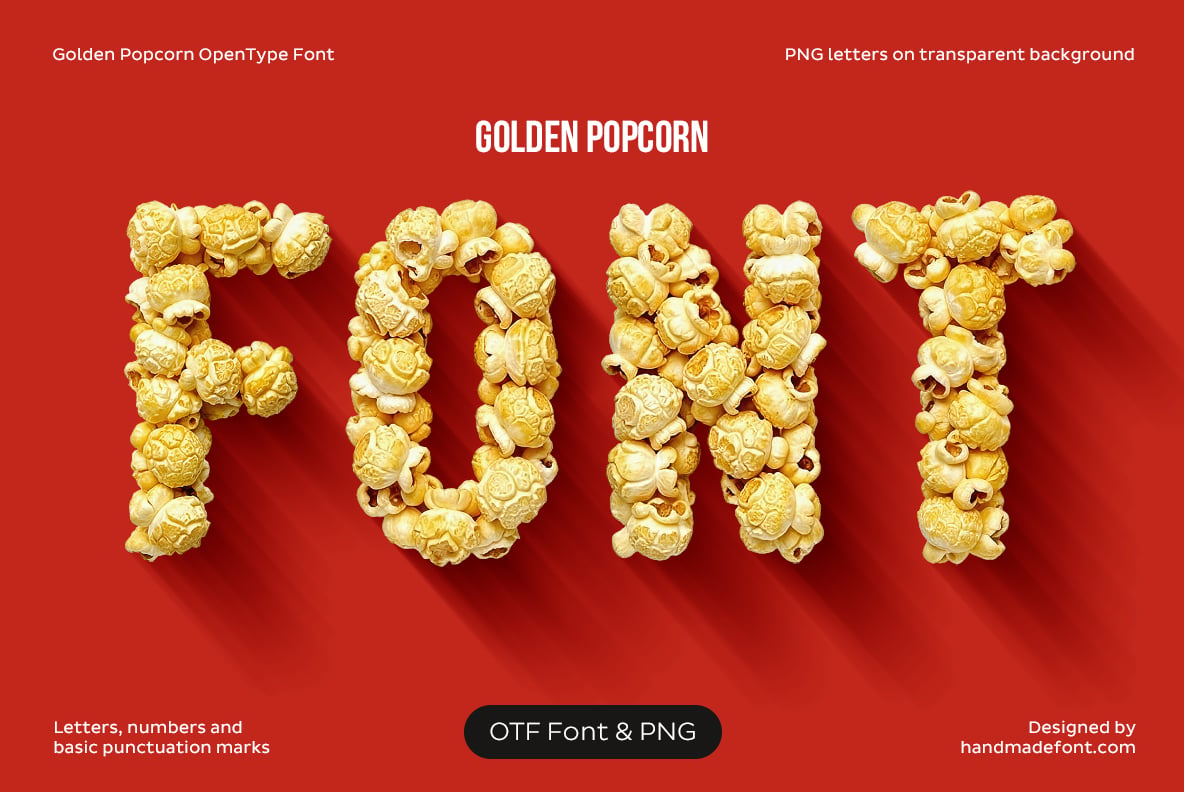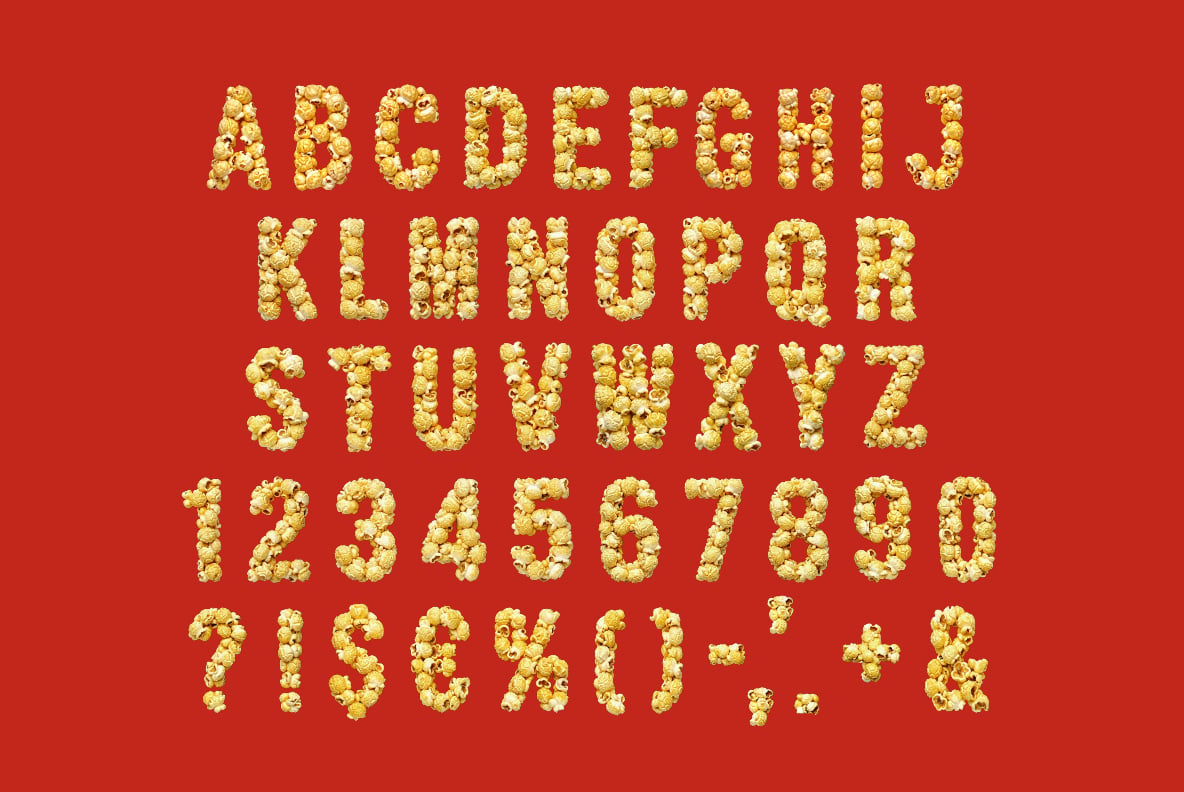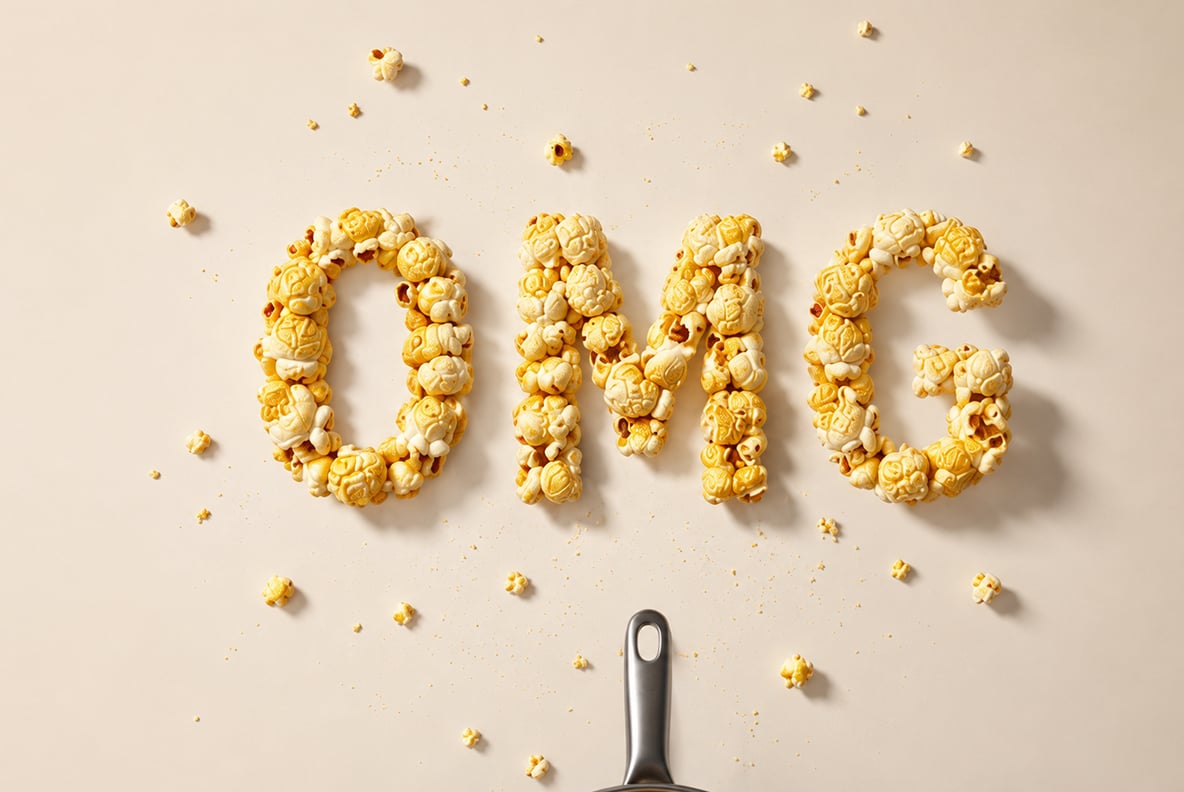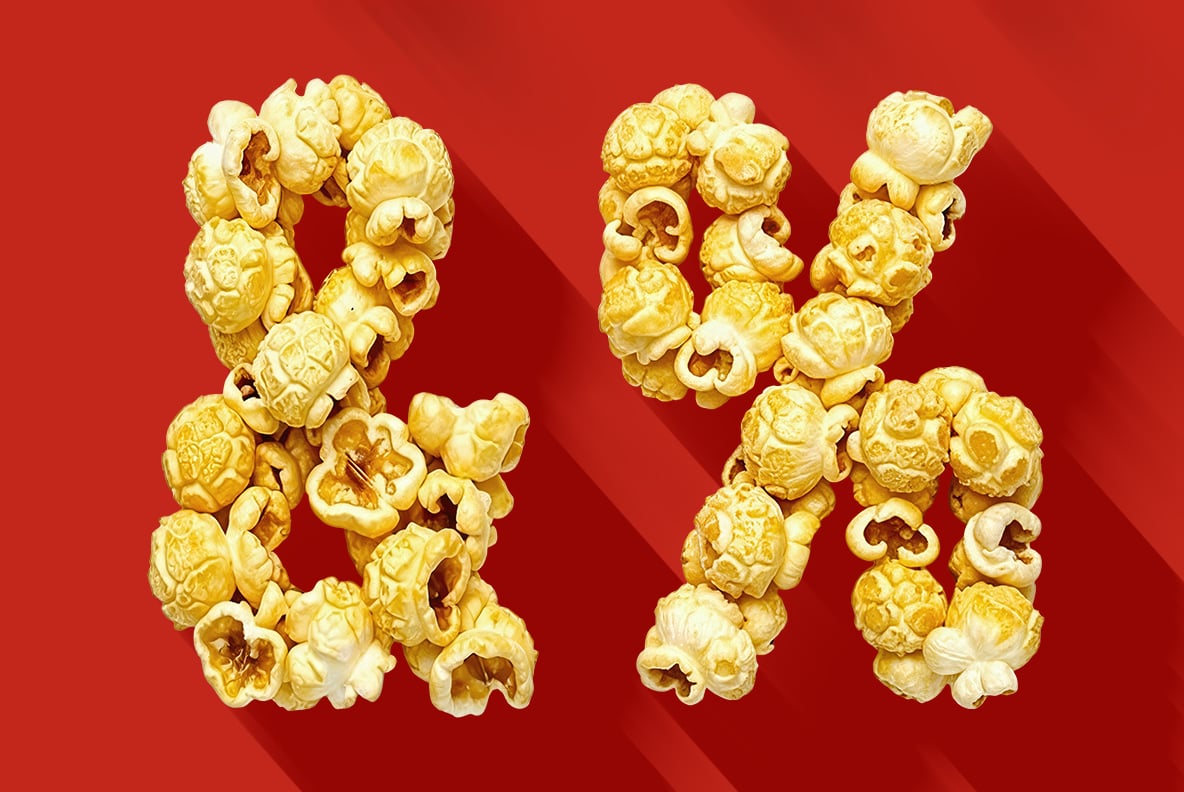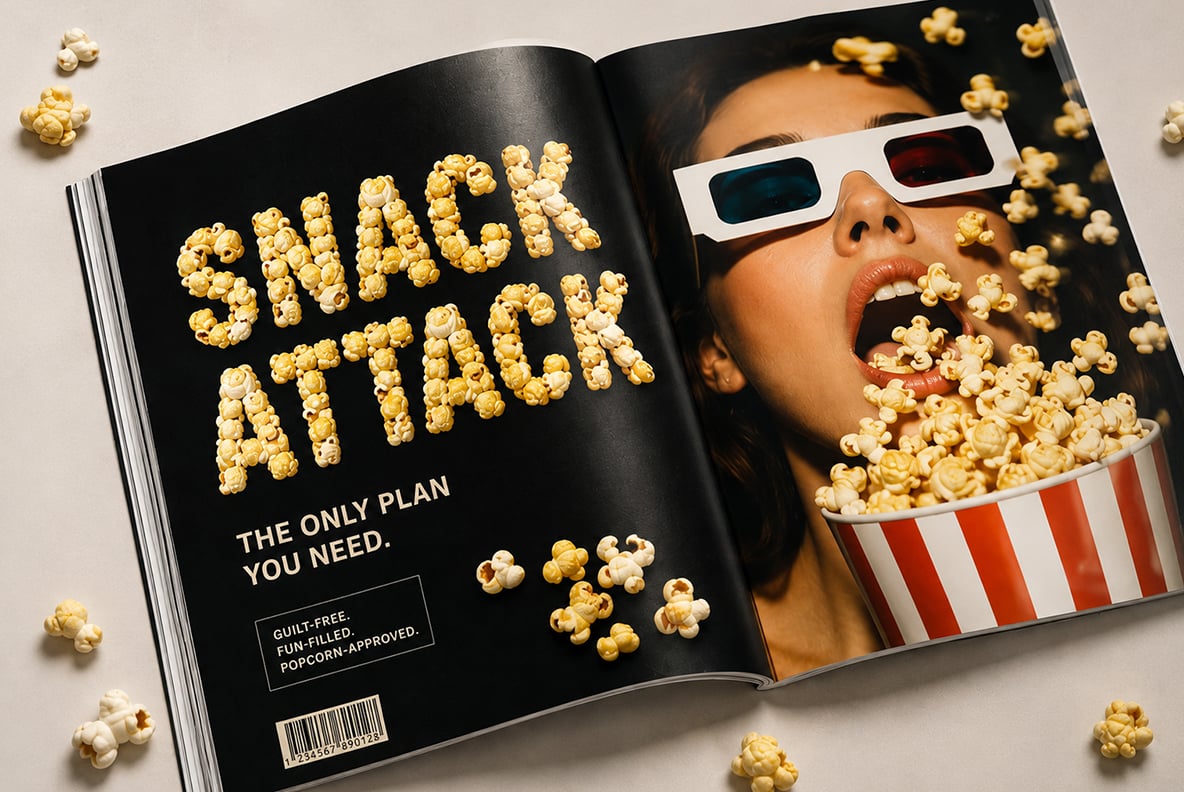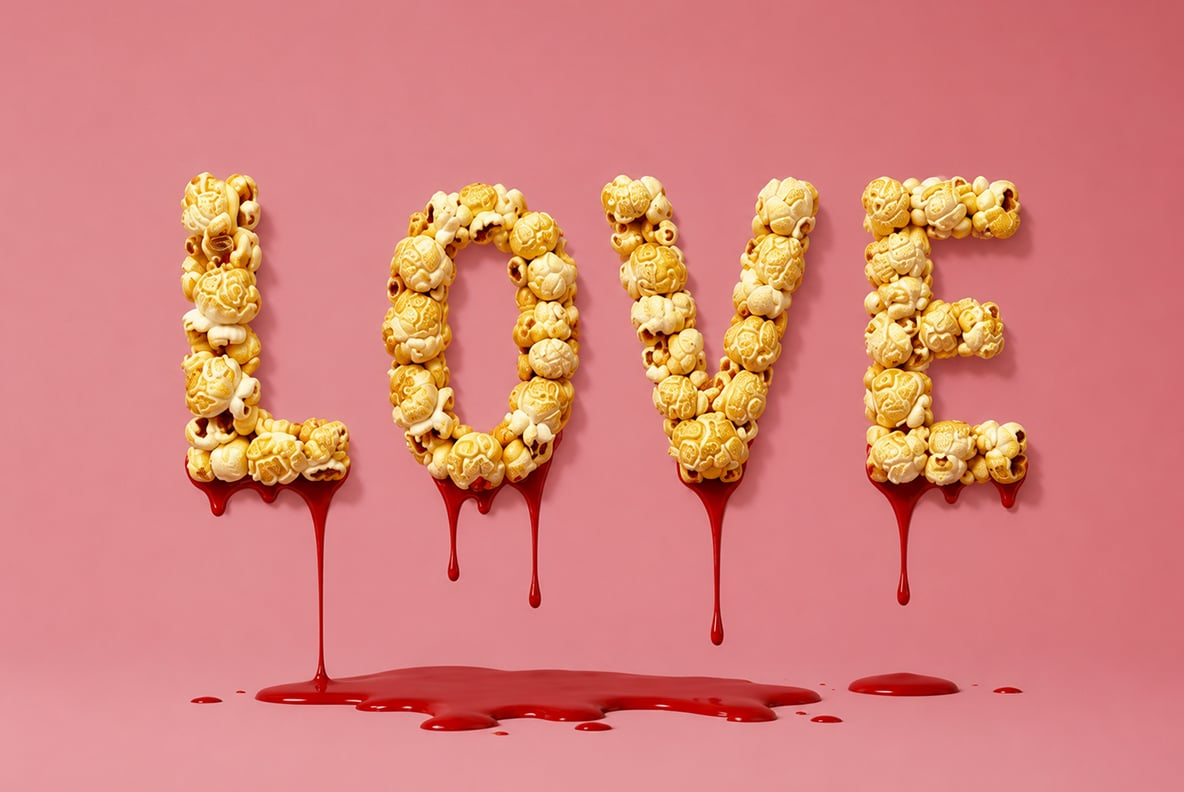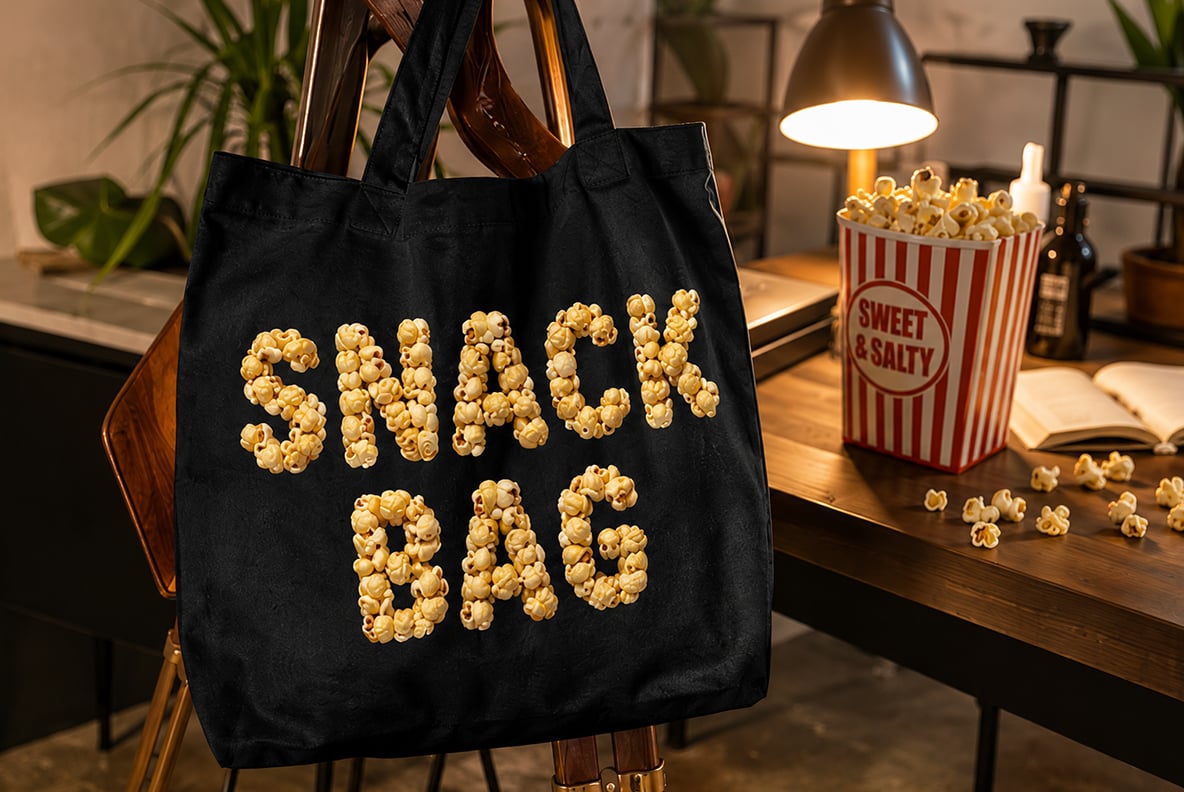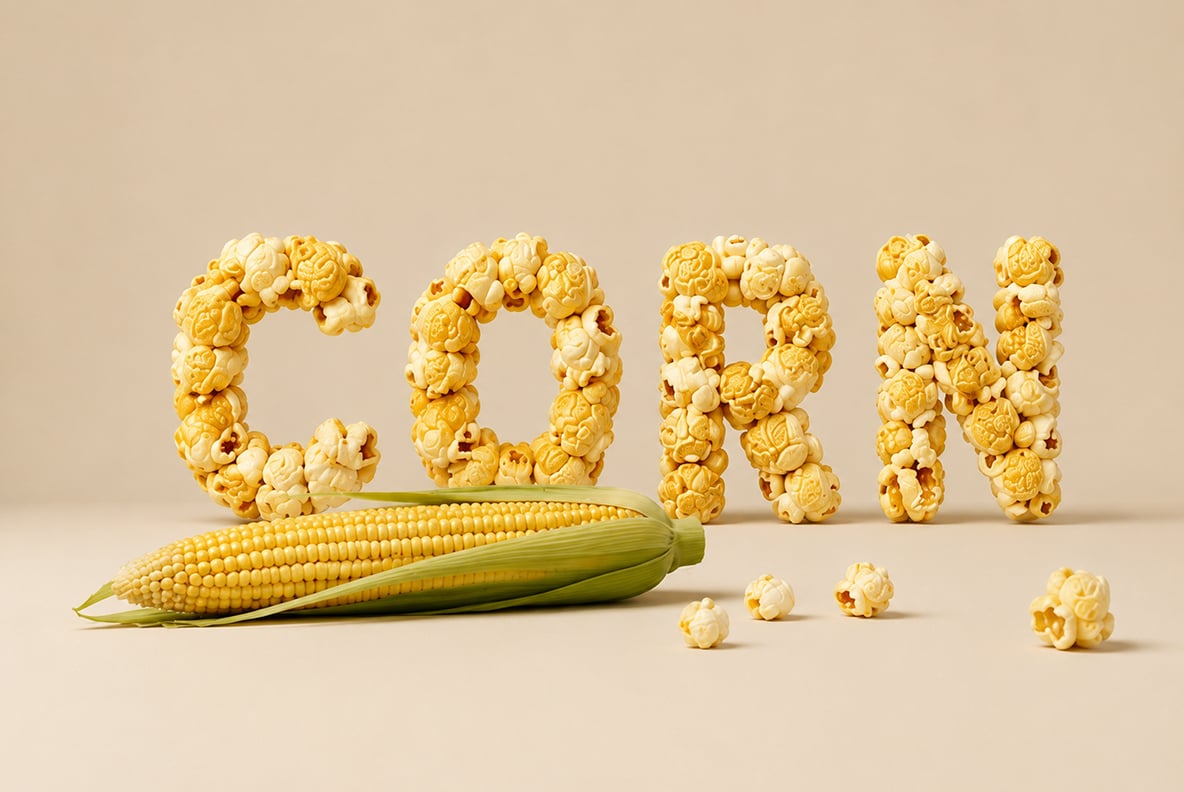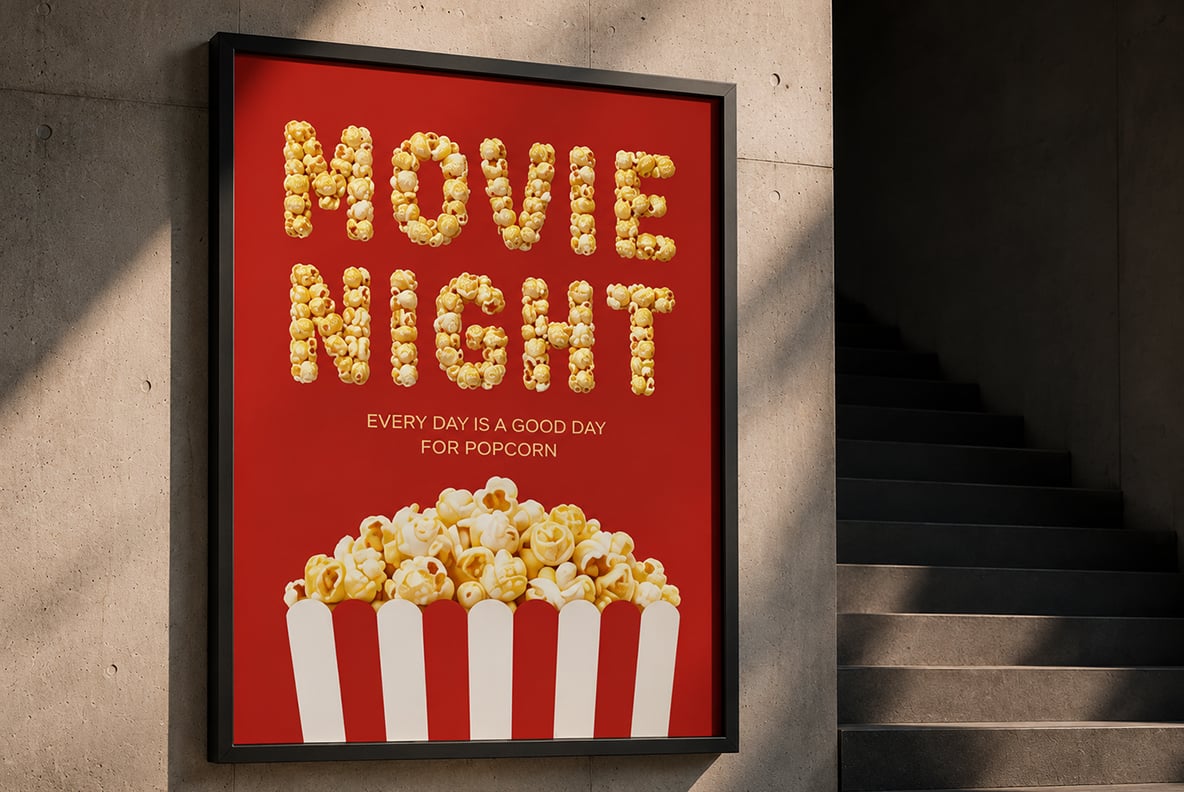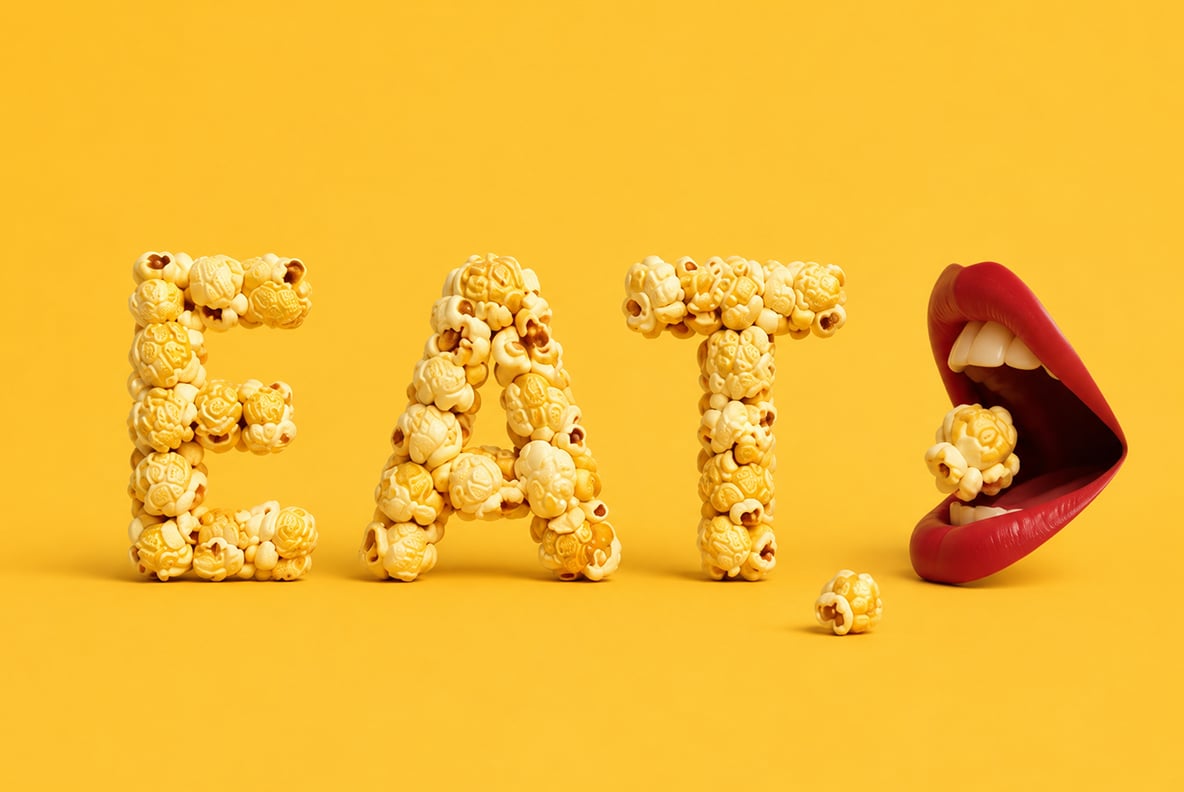
Golden Popcorn Font
Golden Popcorn Font is a playful and eye-catching display typeface handcrafted entirely from realistic popcorn pieces. Designed to bring fun, warmth, and cinematic energy to your projects, this font is perfect for movie posters, snack packaging, food branding, event graphics, social media, advertising, invitations, and creative merchandise. The package includes a fully functional OpenType (OTF) font for easy typing and a complete collection of high-resolution PNG letters with transparent backgrounds for custom layouts and graphic design. Whether you're creating bold headlines or humorous visuals, Golden Popcorn Font delivers a deliciously unique look that instantly grabs attention and adds personality to every design.
Others : ! ? - . ' $ € % & #